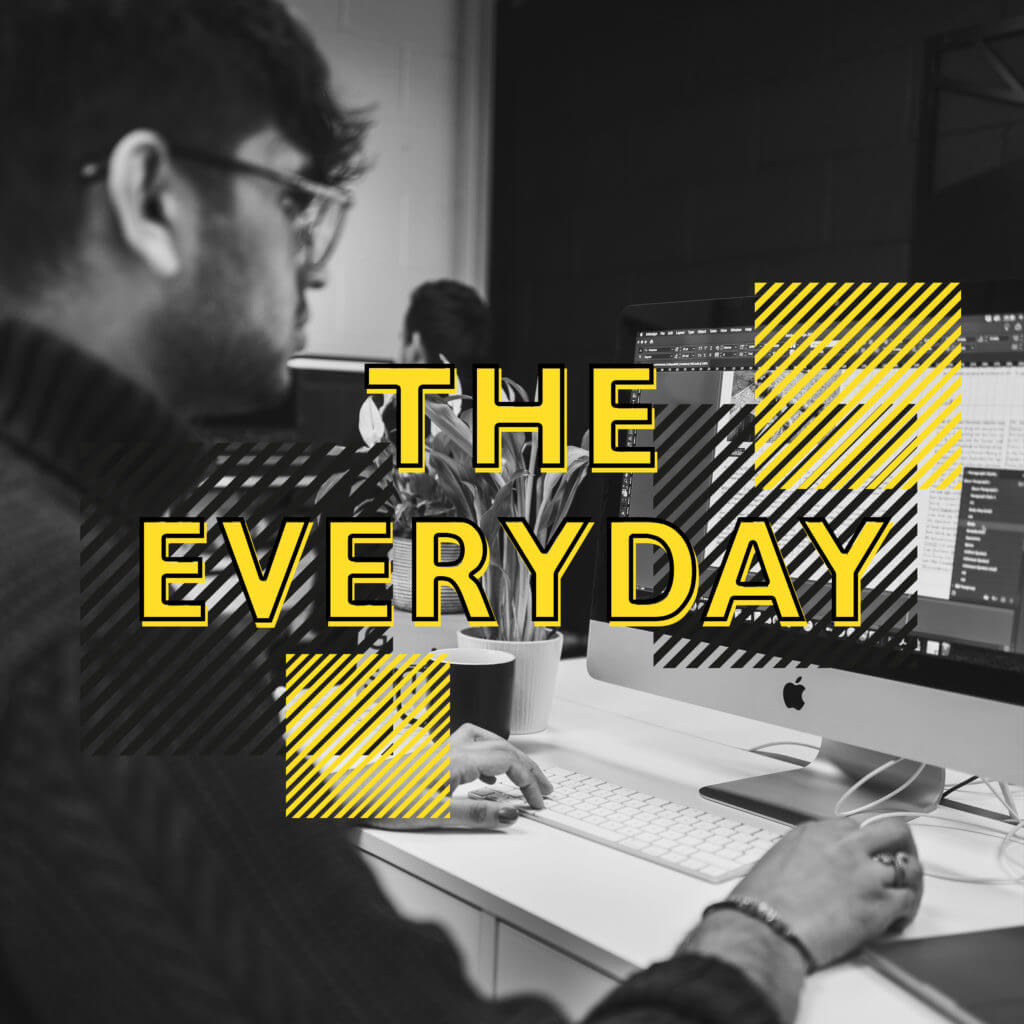
Design ideas and design process
For my Photoshop task, I decided to create three completely different podcast covers. My first idea focused on my office life and ‘The Everyday’ life of a designer. I wanted to the text to be bold against the background image so opted for a black and white photograph of a work colleague. From here I decided that yellow would pair nicely and stand out well against the photo so chose this for my font colour. After researching podcast covers, it became apparent that graphic illustrations are often used to accompany titles. This gave me the idea to add diagonal lines to create a platform for the text to protrude – I’d previously tried drop shadows and outer glow effects but didn’t feel as though they made enough of an impact. To the left, you’ll also see what it looked like without any kind of effects or extra graphics. I also thought that if for whatever reason, I decided to make a series of podcast covers, the lines could be a reoccurring theme throughout the covers.
For my second idea, I decided I wanted to go really out there and push myself to polish up skills and learn new ones. I’d previously played around with the double exposure technique but decided to step it up by using multiple images.
Firstly, I decided the topic of my podcast would be ‘Design in Gaming.’ I chose this as I’d previously attended a Gaming Festival so thought I’d use imagery I’d taken at the event. I chose the saluting figuring as my base image – this would be the outline for my multiple exposures. I started by using the polygonal lasso tool to cut around the edges of the figure – alternatively, I could have used the magnetic lasso tool. I then inverted my selection by using the shortcut command+shift+i and from here deleted the background. The exposure effect was then created by dragging a new image into the document; I then altered the opacity so I could position where I wanted it and once happy with the position selected command and clicked the saluting figures layer. By then selecting the other images layer and adding a vector mask it created a silhouette of the saluting figure.
From here, I was able to use the brush tool in the colour black to fade out sections of the top layer image – this allowed for detail from the original image to be seen. I chose the brush tool to remove sections out, rather than than the eraser because by using the brush in the colour white I’m able to add the faded sections back in. I then repeated this process with a variety of images and added a gradient fill across all layers to add the blue and green effect. I finished by altering the exposure, contrast, whites and blacks to make colours darker and more defined.
I opted for a simple grey background with paint splatters in the same colours as the gradient. I’d done some research into gaming podcasts and they often used dark backgrounds with pop colours so I thought this would relate nicely (see image on the right). I also wanted a simple font so it stood out against the complex imagery. Looking back, this is probably the thing I would experiment with more. I don’t think it relates well to the rest of the design and almost looks out of place. From my research, gaming podcasts often rely on bold text with minimal imagery – my design is quite the opposite and therefore if published could go one of two ways.
For my final podcast design, since I’d previously focused on bold imagery, I thought I’d focus more on the text. I found this image on Unsplash and liked the idea of making use of the green space. I started by cutting around the girl and blanket and duplicated the layer (command+j). This was so I could layer the text in between the two image layers to create a tucked behind effect. The image on the left shows my layers and how I positioned them. On reflection, I think I should have used the stamp tool to remove the text from all over the book. This would have made the overall design look a little cleaner.
My final designs:
The biggest challenge for the Photoshop project was brushing up on skills I haven’t used in a while, such as; double exposure and outlining text.
For my ‘Design in Gaming’ podcast cover, a lot of the skills and shortcuts I used I already had an understanding of. I’d also previously experimented with double exposures but not to the extent of using 8+ images. To recap and learn how to do this, I read the Adobe article ‘Use Adobe Photoshop to create a double exposure effect.’ It was really helpful and allowed me to refresh my memory – it also gave me the idea of adding a gradient map to my final image. I decided I wanted to also watch a more in-depth tutorial and came across ‘Double Exposures Effect – Photoshop Tutorial’ by Letsgettoit on Youtube. It was incredibly helpful to be able to see what layers were being selected and the shortcuts being used.
Even though it wasn’t a skill I used in my designs, I really enjoyed learning about how to expose photos beyond the base image on double exposures. This was demonstrated in the Youtube Photoshop tutorial I watched.
I’d really like to learn a faster way of doing everything, whether this is learning shortcuts or different tools that do the same thing, just in a faster fashion. I’d also be interested to learn more about photo blending and the ability to combine photos and blend them together seamlessly while matching the colour and tone.
I’m also curious about how to dodge and burn images – this is something I have absolutely no experience in. I know that the dodge and burn tool are used to lighten or darken areas of an image but apart from this, I have no idea when it would be appropriate to use them and how you would use them.
Resources for research and inspiration
When we were first given this task, my initial reaction was to look at inspiration on Google and Pinterest. I created a board on Pinterest to highlight my favourite ideas, this mainly consisted of illustration based podcast covers as I struggled to find a variety of photography based covers. The reoccurring themes were bold fonts and graphics illustrations, with images of individual people cut out from their background and instead placed on a colour or pattern background.
On reflection, I definitely should have read articles on how to create a successful podcast cover and then matched my covers to represent my findings. Rather than looking at designs I liked and developing them into my own style and topic.